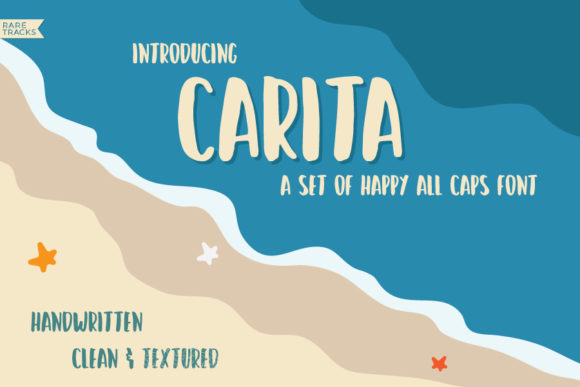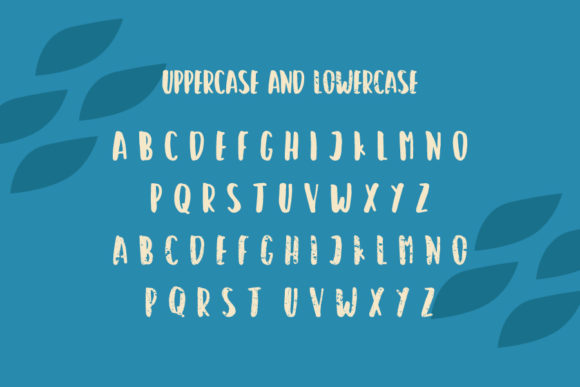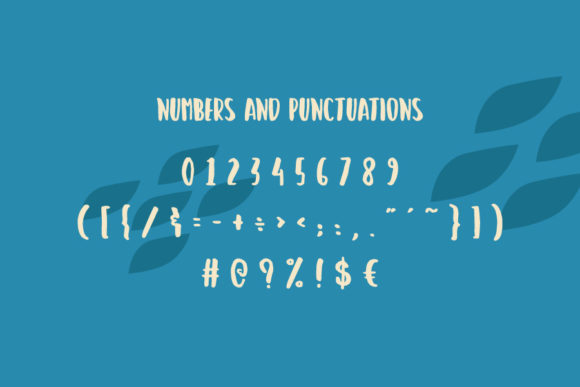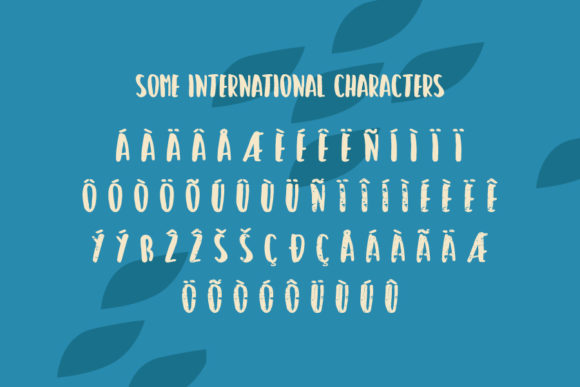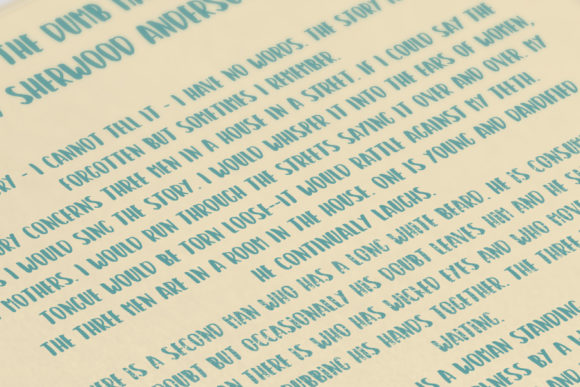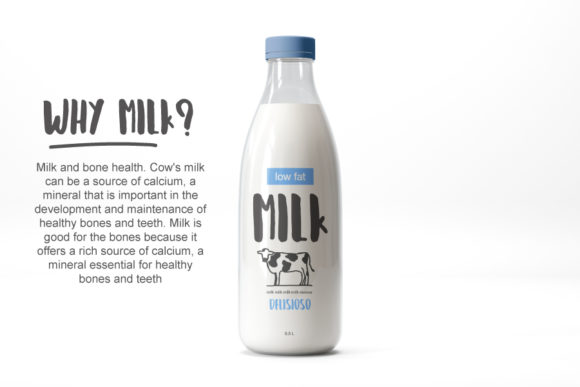
HomeScript FontsCarita Font Script Fonts Carita Font FacebookXPinterestWhatsApp Carita Font Poster 2 Carita Font Poster 3 Carita Font Poster 4 Carita Font Poster 5 Carita Font Poster 6 About Carita Font The Carita is an all caps typeface. It has an fun feel and will add a striking touch to your designs. DOWNLOAD ON CREATIVE FABRICAThis font is sold and delivered by Creative Fabrica. Font Canyon may earn a commission if you buy through this link. People also explored Altosa Font Baseball Font Excellent Signature Font Handsome Font Tindak Pundi Font Hallgone Font Sacred Wedding Font Adventure in Love Font Delightin Font 375 0 TagsCarita Font Previous articleRathrine FontNext articleQuite Good Font LEAVE A REPLY Cancel reply Comment: Please enter your comment! Name:* Please enter your name here Email:* You have entered an incorrect email address! Please enter your email address here Website: Save my name, email, and website in this browser for the next time I comment. Personal Use Free Bulky Personal Use Free Read more about this font Dear Monita Personal Use Free Read more about this font Boldist Personal Use Free Read more about this font Cranberry Gin Personal Use Free Read more about this font BLOG Best Fonts for T-Shirt Design – Top 2025 Picks In 2025, t-shirt design has become more than just fashion—it's a form of self-expression. Whether you're... Free Fonts Risk: Why Free Fonts Can Be Dangerous for Designers How to Install and Use Fonts on Windows, macOS, and Web Projects Fonts That Capture the Spirit of New York City